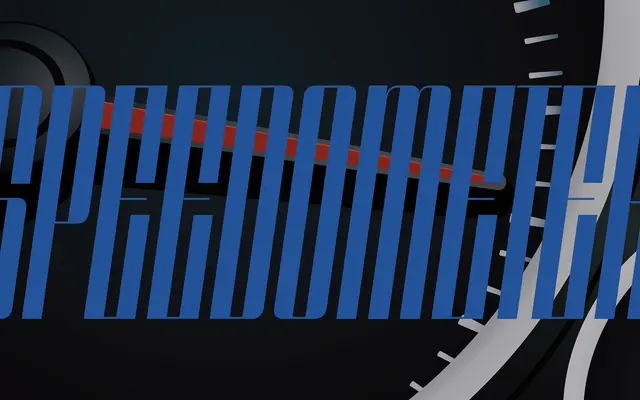
Speedometer specimen from Dharma Type
A narrow, high-contrast display face derived from Dharma Type's Dimensions family, built for titling and logo work.
Derived from Dimensions, one of Dharma Type's narrowest and boldest families, Speedometer introduces pronounced contrast between thick stems and thin arms to sharpen its sense of energy. Six weights run from Thin to Black with matching italics, and small capitals are accessible via the OpenType smcp feature. Best suited to posters, logotypes and headline settings where a condensed, dynamic silhouette is required.
A narrow, high-contrast titling face with extreme width compression and strong stroke contrast, placing it firmly in the condensed display category suited to logos and headlines.